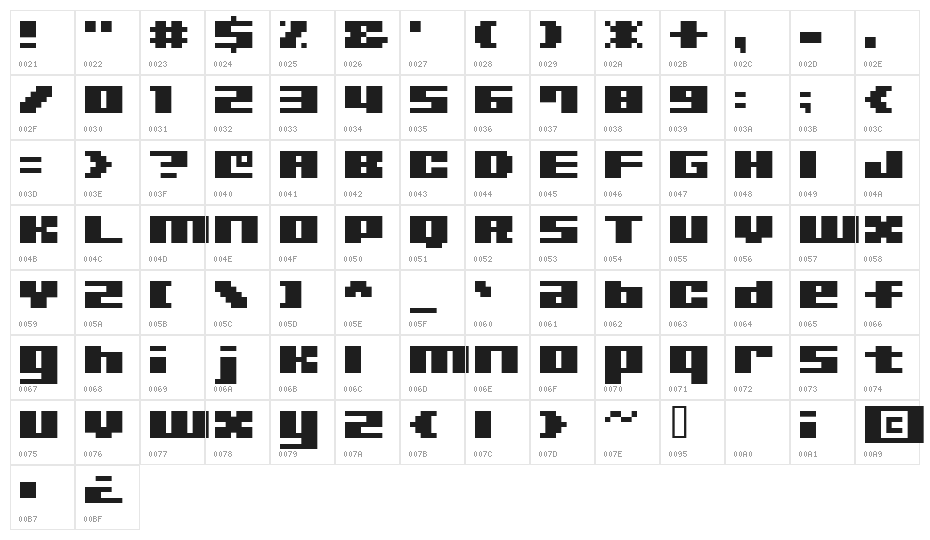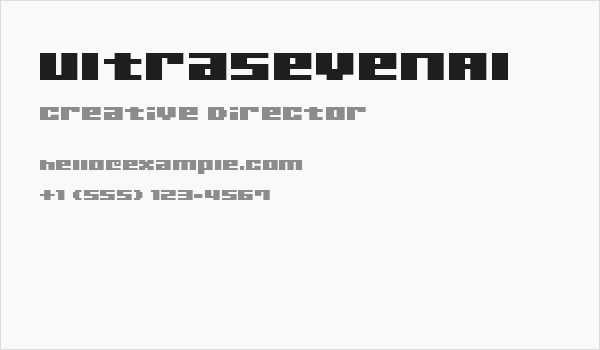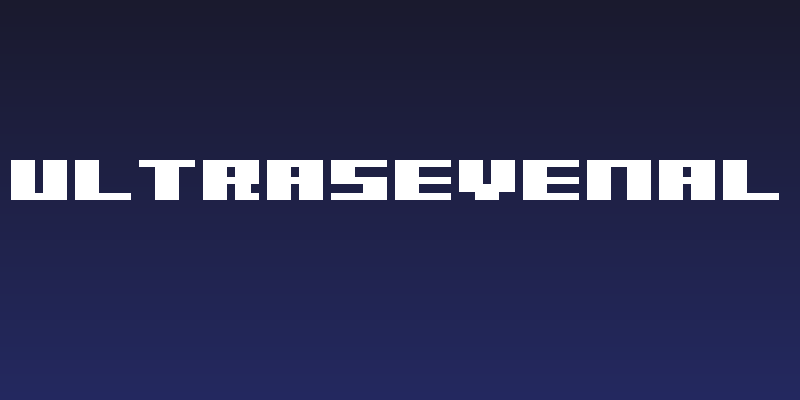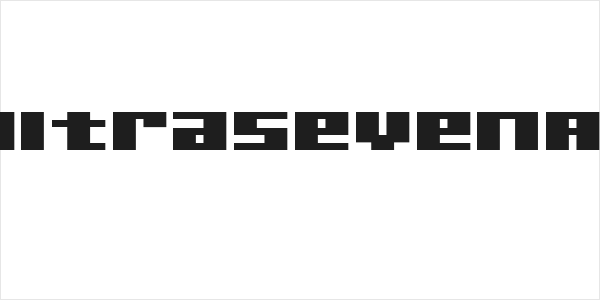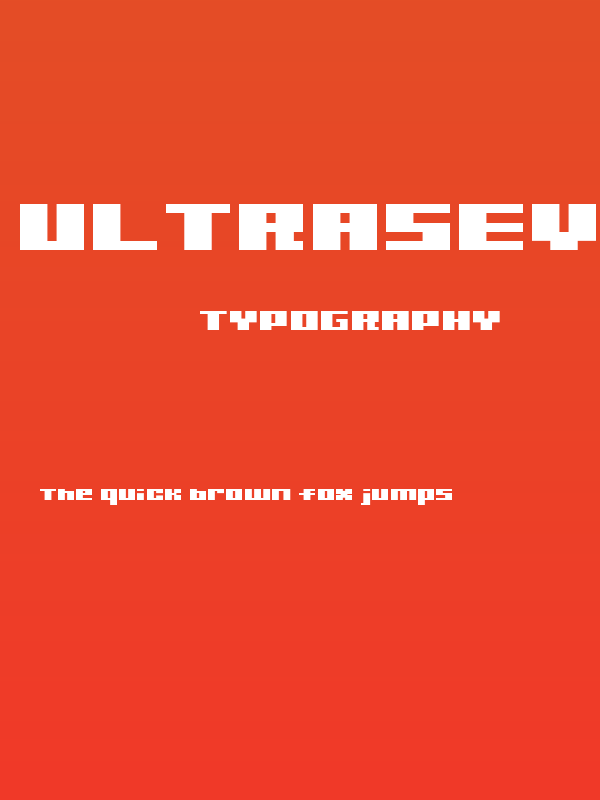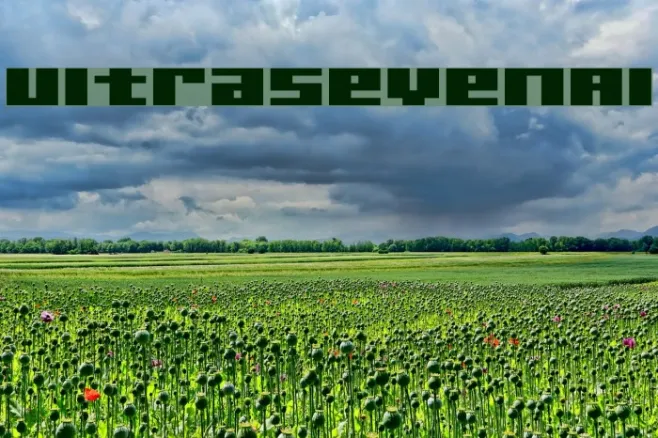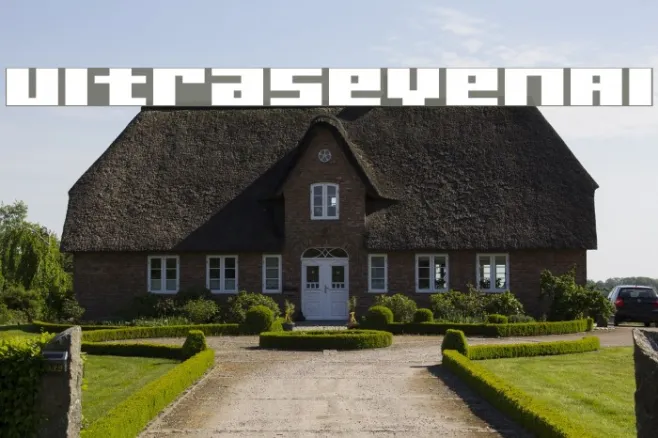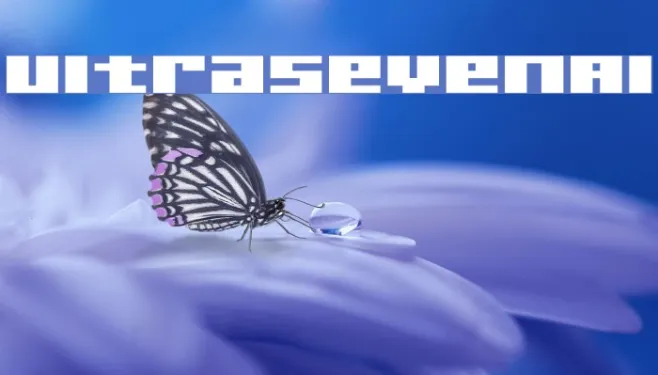
UltraSevenAl Font
UltraSevenAl Description
This font features a bold, blocky design with a distinctly pixelated aesthetic reminiscent of early digital displays and video games. The characters are uniformly wide, with a consistent height that gives the typeface a monospaced appearance, although it is not strictly monospaced. The uppercase and lowercase letters share similar widths, creating a cohesive look across different text sizes. The numbers and special characters maintain the same pixelated style, ensuring visual consistency. This font's geometric shapes and sharp angles make it ideal for retro-themed projects or designs that require a strong, impactful presence.
| Overall Style | Retro, Digital |
| Proposed Projects | Ideal for video game graphics, retro-themed posters, digital art, and tech-related branding. |